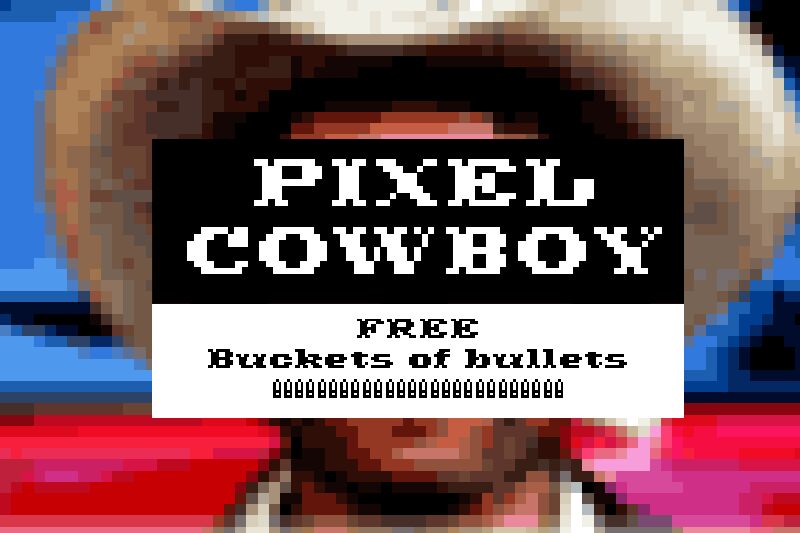
Pixel Cowboy is a bold, expanded bitmap font that exudes a retro, pixelated charm. Designed by Bruno Herfst, this font's striking visual style immediately grabs attention with its rugged, western-inspired aesthetic.
The expanded character widths and bold, blocky shapes convey a sense of strength and prominence, making Pixel Cowboy an ideal choice for display text, headlines, and branding applications. Its pixelated appearance lends a nostalgic, vintage-inspired flair, making it well-suited for game interfaces, album covers, and other digital media projects seeking a distinct, old-school feel.
Whether used for a gritty, rebellious tone or a playful, whimsical vibe, Pixel Cowboy's versatile personality allows designers to bring their visions to life with a truly distinctive typographic statement.